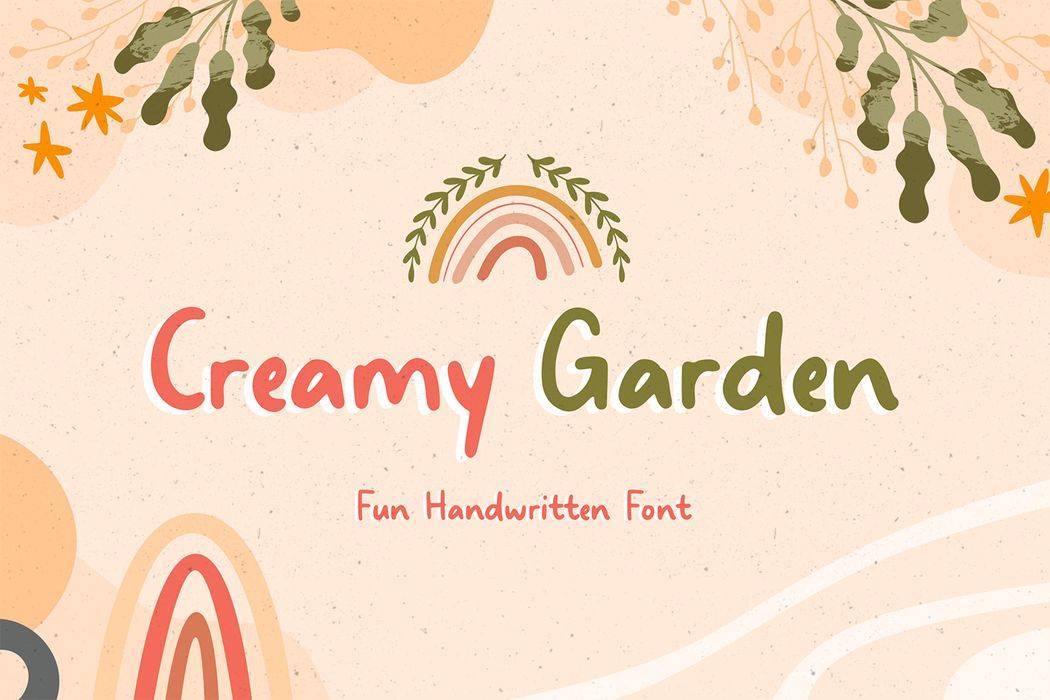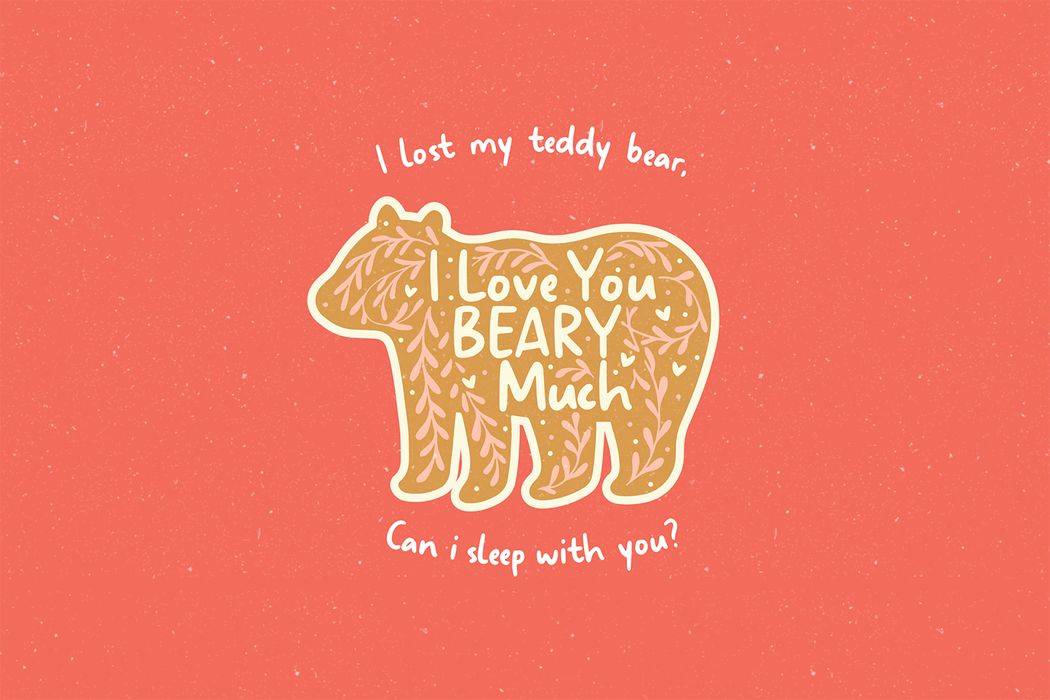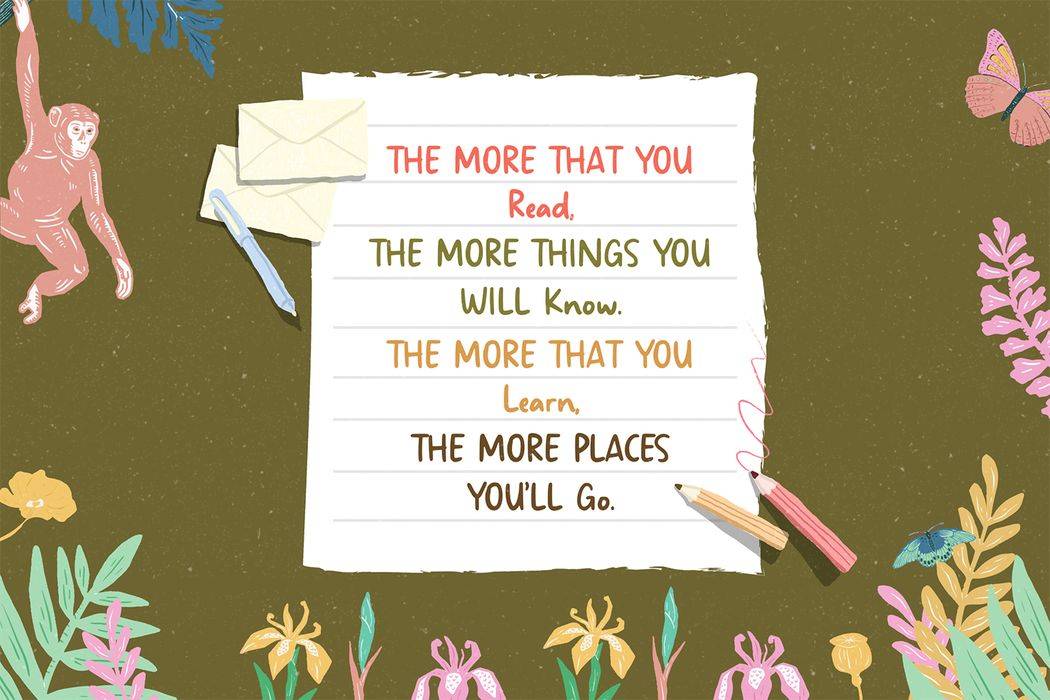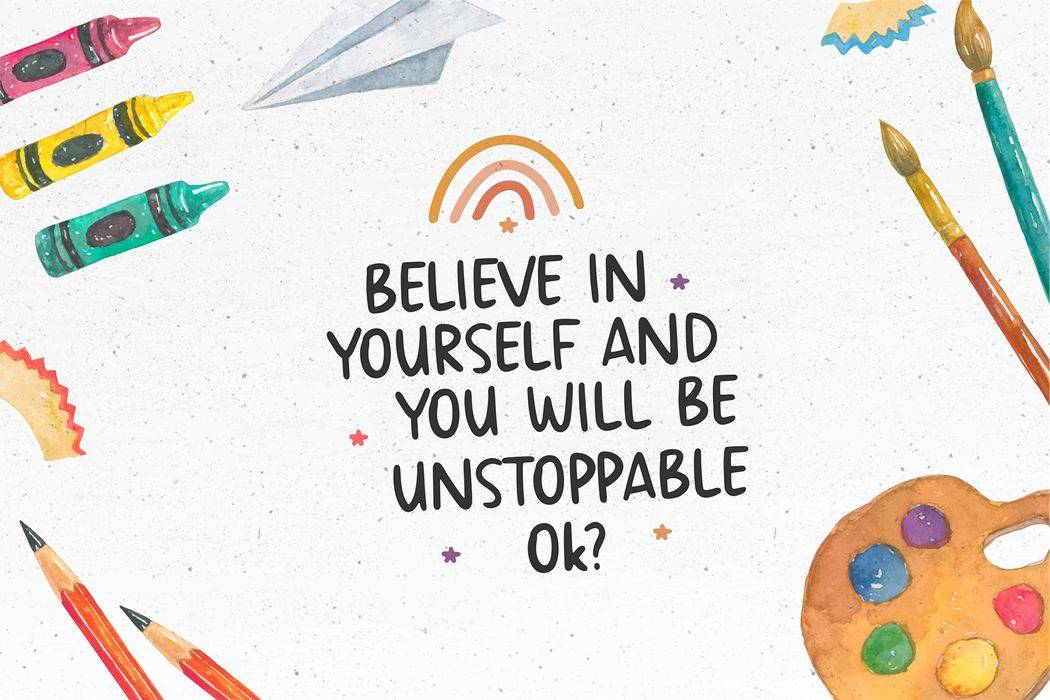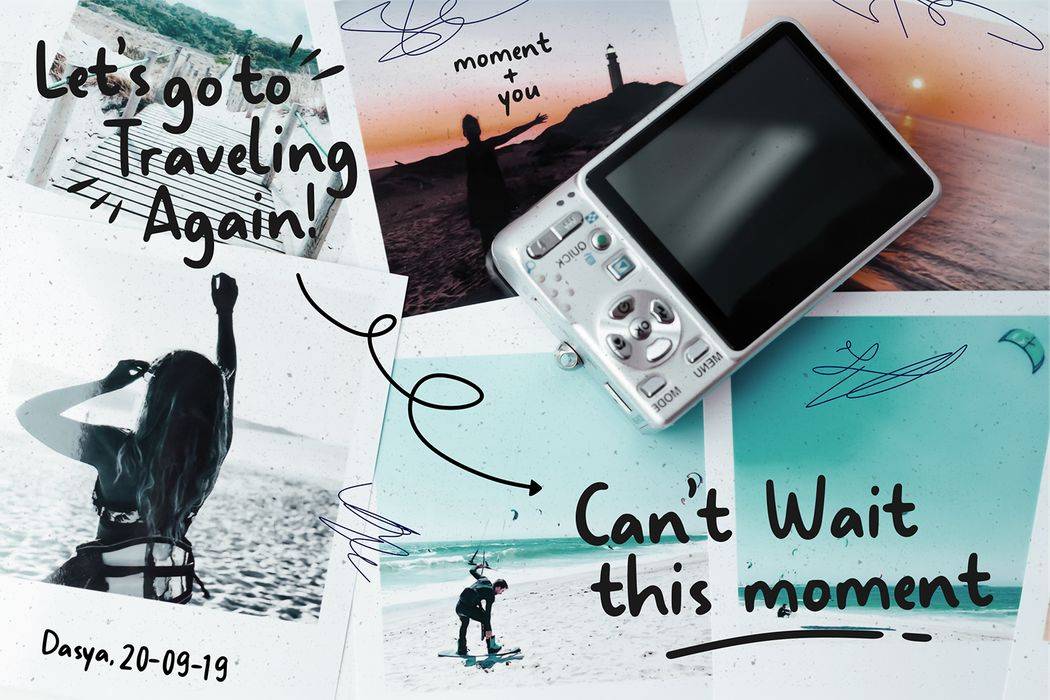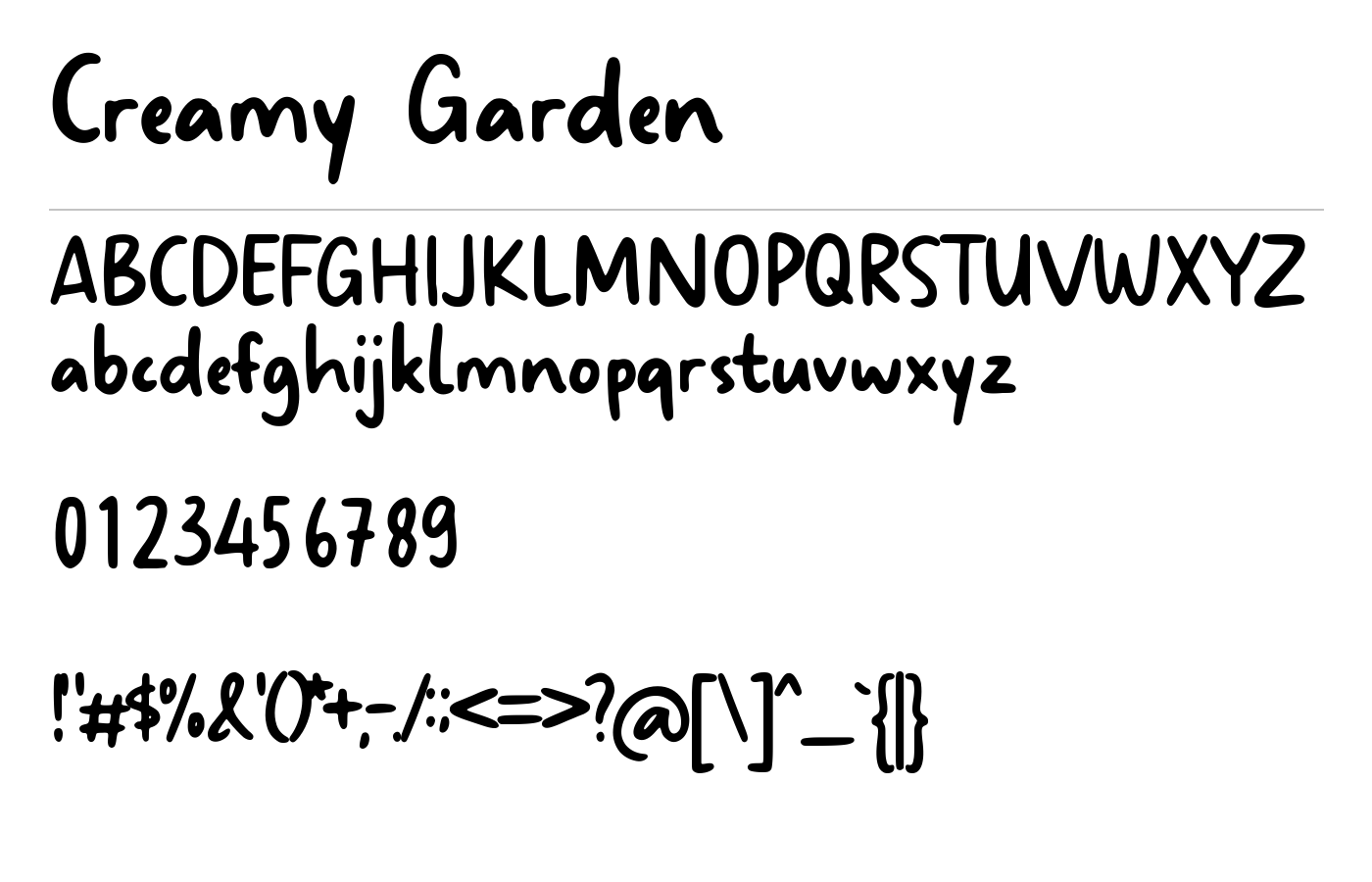
Creamy Garden is a playful, hand-drawn sans serif font with a casual and friendly vibe. Its rounded, slightly uneven letterforms and moderate x-height give it a warm, approachable feel, perfect for informal designs like children’s books, greeting cards, and creative branding. This font brings a charming, personal touch that works well in both headlines and short texts where a relaxed, whimsical mood is desired.
Creamy Garden Font
About Creamy Garden Font
| Font family | Creamy Garden Font |
| Designer | Allouse Studio |